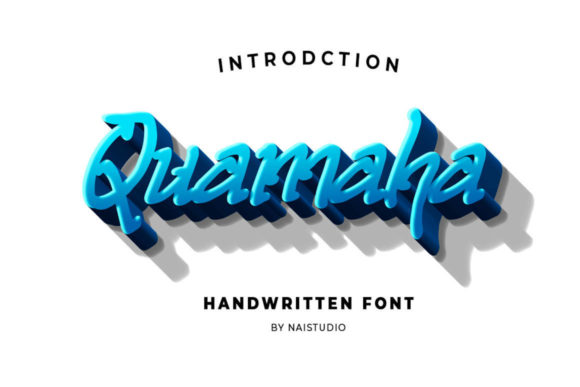
**Introducing Quamaha Font - The Gateway to Retro Charm and Whimsical Designs**
Quamaha Font, a remarkable script typeface from the creative minds at naistudio, transports you to the golden era of retro designs, where nostalgia intertwines with contemporary appeal. This enchanting font exudes a playful and authentic spirit, making it an irresistible choice for designers seeking to infuse their creations with a touch of handwritten magic.
**Unleash the Allure of the Past with Quamaha Script**
Quamaha Font's enchanting curves and playful strokes evoke the carefree spirit of vintage designs. Its meticulously crafted characters dance across your screen, embodying the charm and authenticity of handwritten notes. Whether you're crafting retro-inspired logos, whimsical posters, or captivating social media graphics, Quamaha's versatility knows no bounds.
**Embrace Playfulness and Authenticity**
With Quamaha Font at your fingertips, you can effortlessly infuse your designs with a sense of playfulness and authenticity. Its carefully crafted swashes add a touch of whimsy, while its natural flow mimics the charm of heartfelt penmanship. Unleash your creativity and let Quamaha's playful spirit guide you towards captivating designs that resonate with your audience.
**The Ideal Font for Designers with a Vision**
Quamaha Font is the perfect companion for designers who dare to dream big. Its versatility empowers you to explore a multitude of design possibilities, from timeless retro aesthetics to modern marvels. Whether you're creating eye-catching branding, enchanting invitations, or heartfelt greeting cards, Quamaha's unwavering charm is sure to leave a lasting impression.
**Join the Retro Revolution with Quamaha Font**
Embrace the allure of the past and embark on a design journey with Quamaha Font. Let its enchanting curves and playful strokes transport you to a world of retro charm and endless possibilities. Unleash your creativity and craft designs that captivate, inspire, and leave an unforgettable mark on your audience.